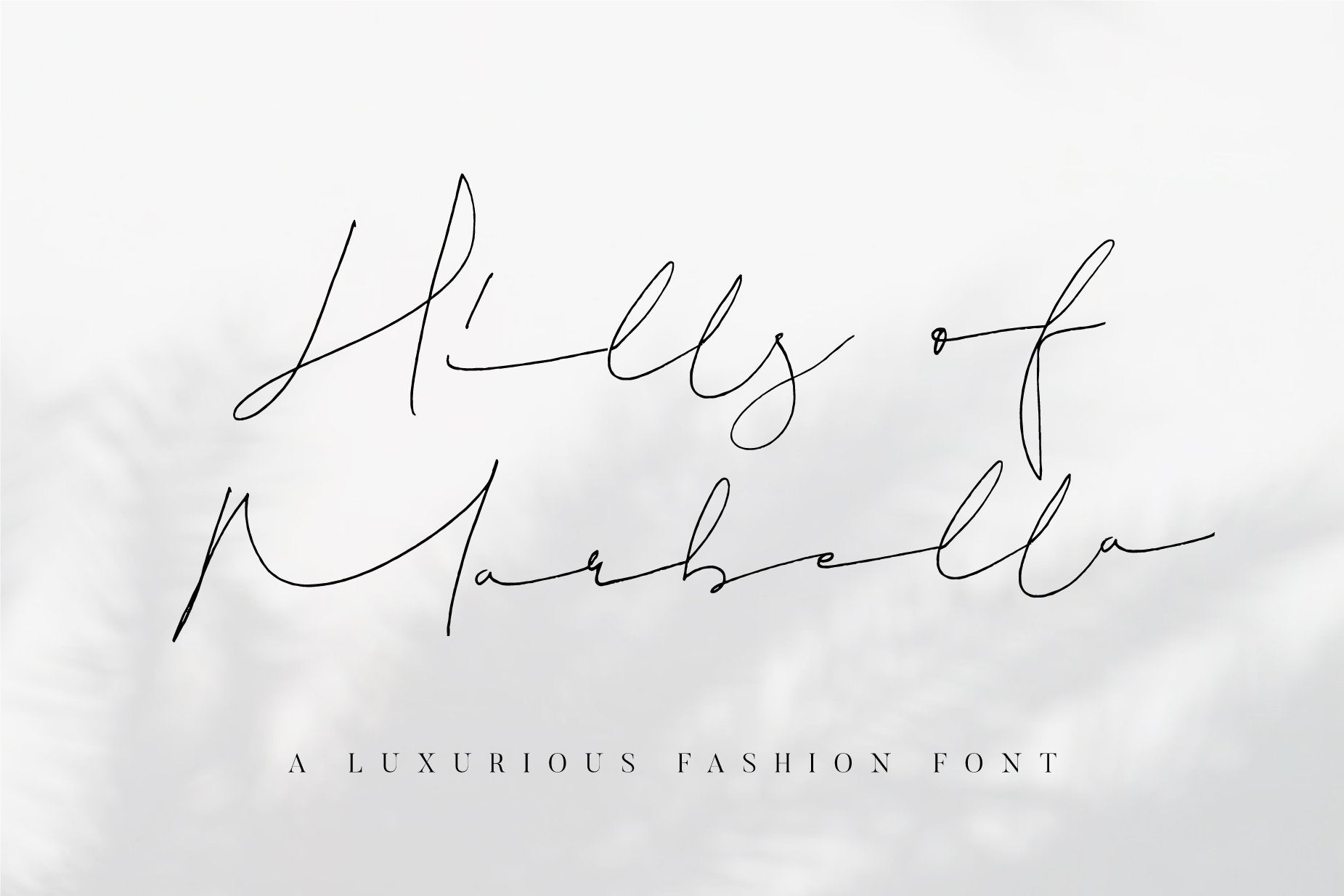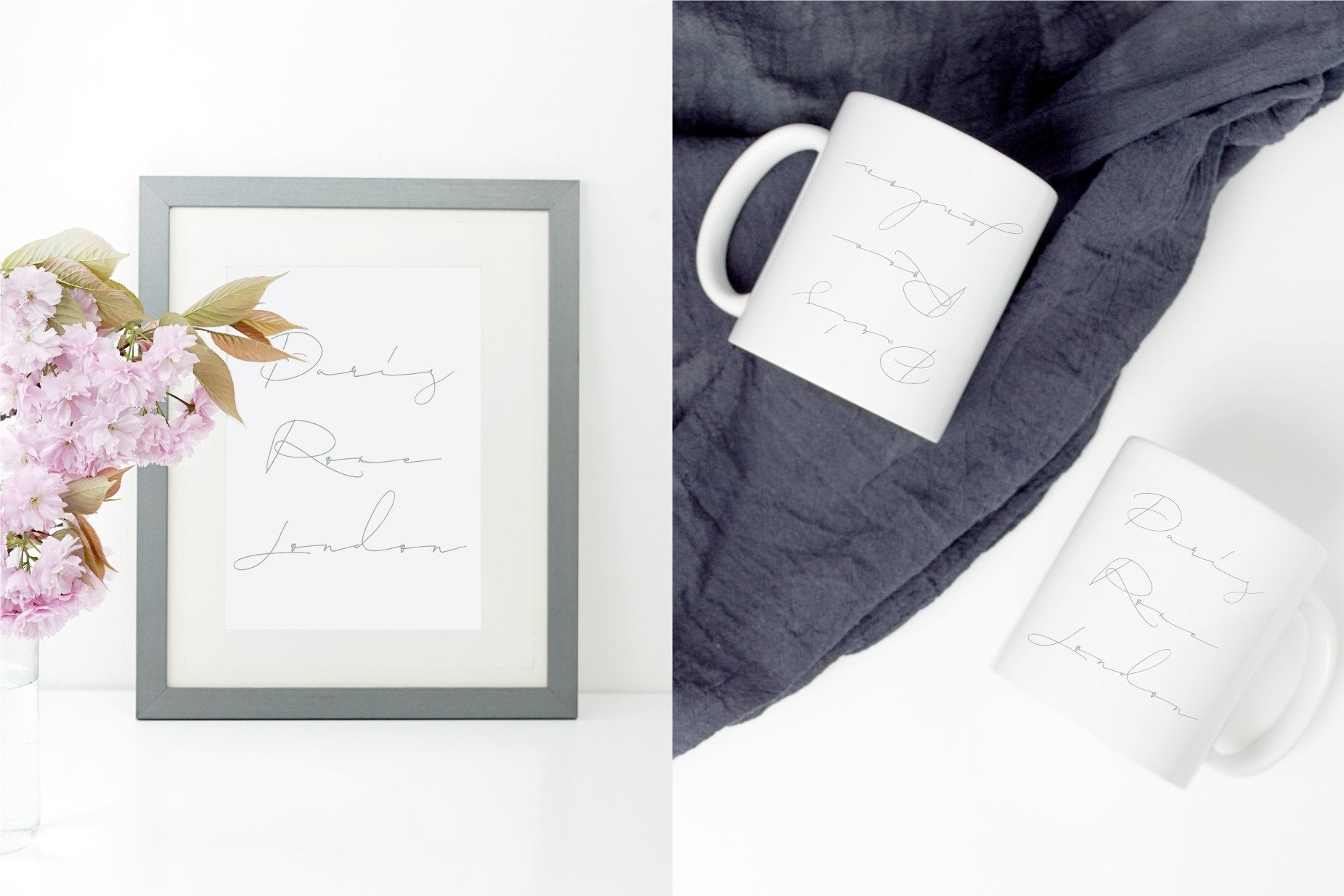
Today we're glad to feature Hills of Marbella - Free Handwritten Script Font. This is a downloadable free font file brought to you by Crella's Free Fonts. You can create a professional designs with this beautiful font.